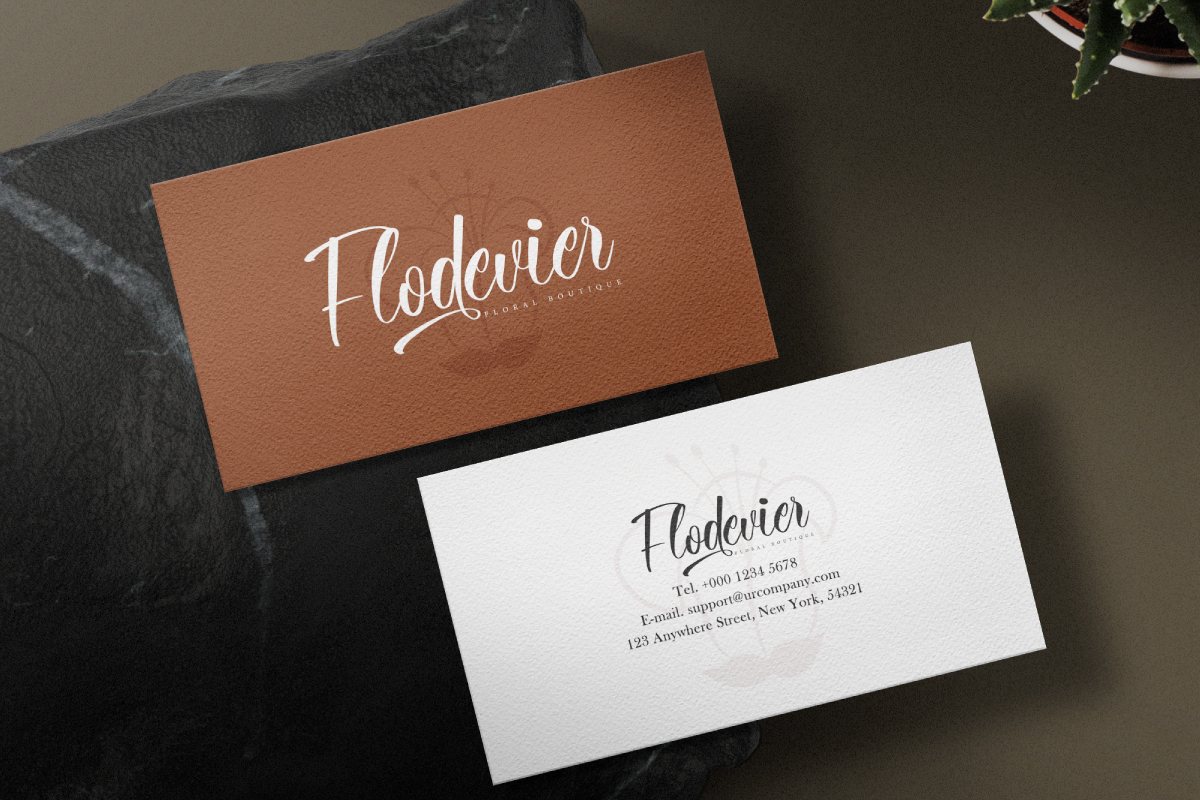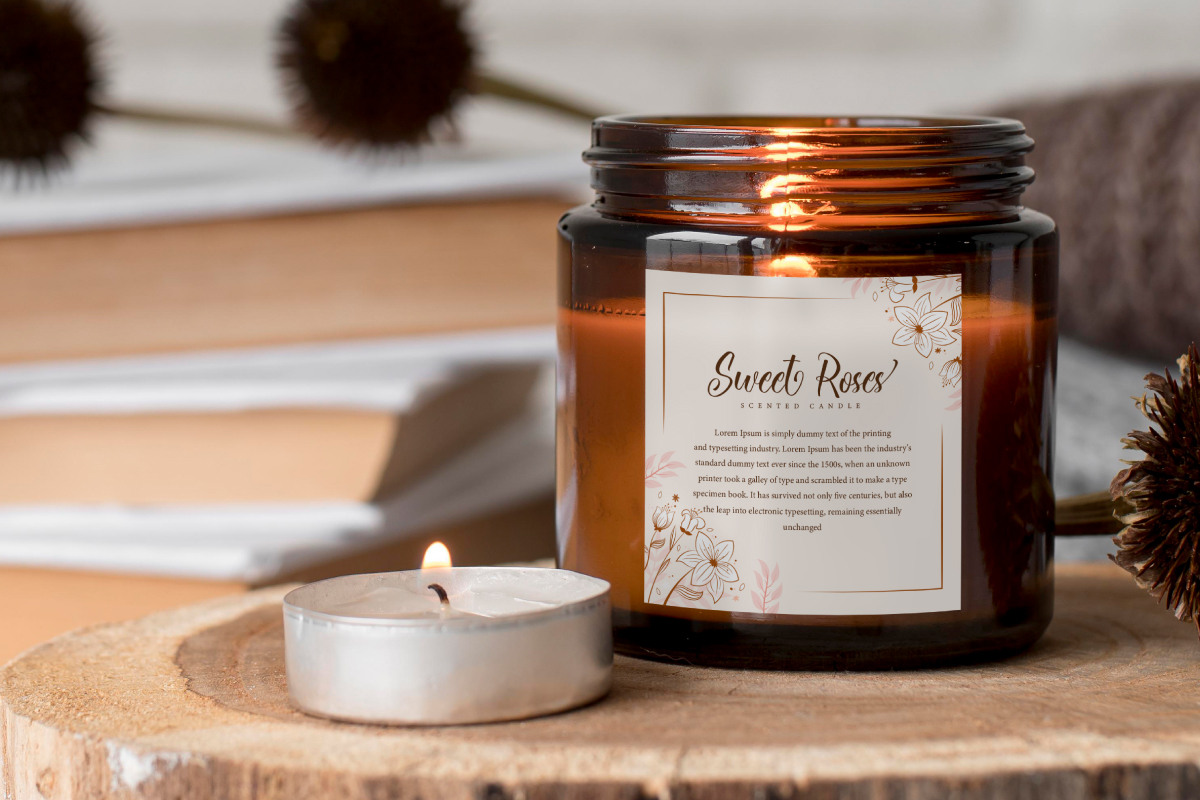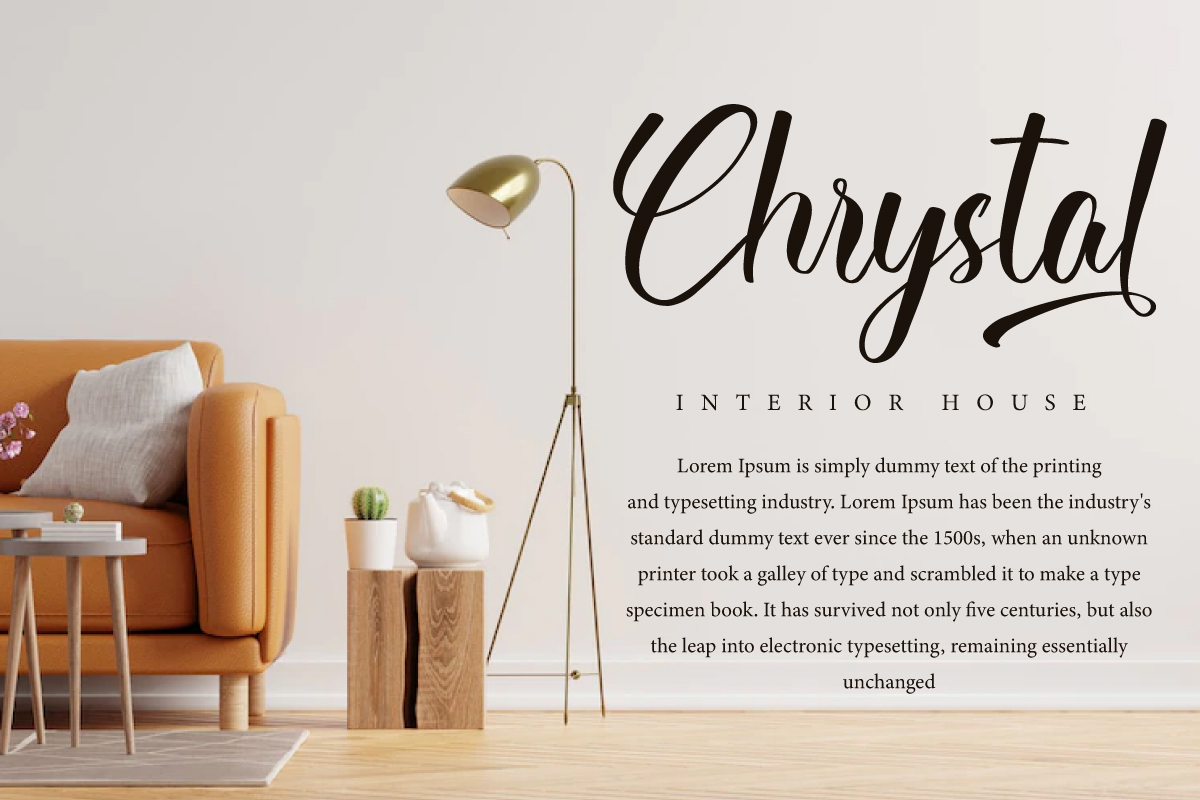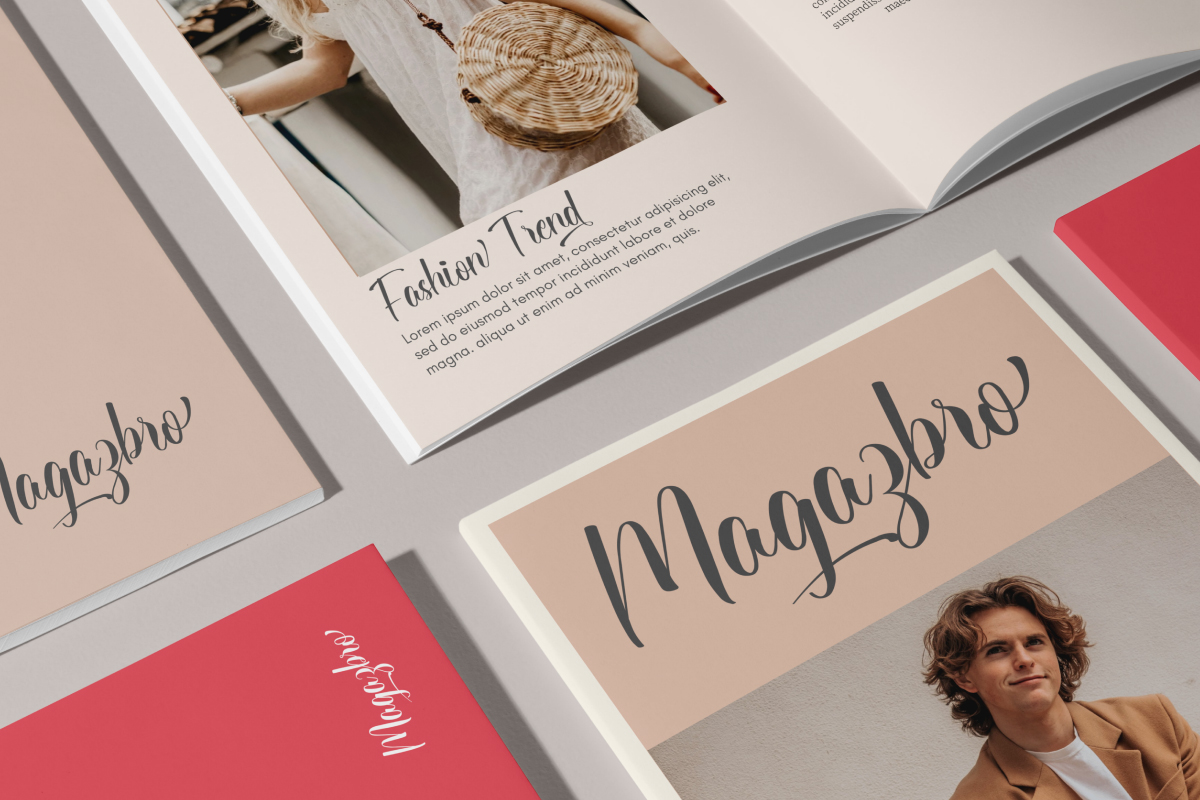
Candle Suit Font
Candle Suit Script Font is an elegant script font with calligraphy style. This font is beautiful because it uses a balanced brush in thick and thin and will help perfect your designs, such as billboard, business card, header, label, magazine catalog, quotes, stationery, website, and more!